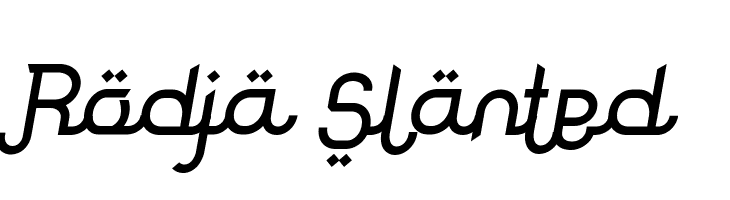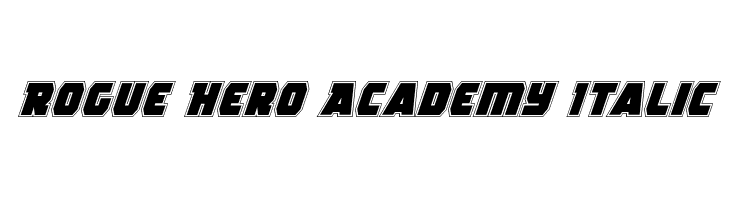
A dynamic, slanted script font with flowing, interconnected characters.
A bold, vintage-style font with thick strokes and unique cut-out details.
A playful, rounded font with bold, smooth strokes and uniform spacing.
A vintage, typewriter-style font with a classic, monospaced design.
A bold, monospaced typewriter-style font with slab serif elements.
A vintage typewriter-style font with a light, elegant touch.
A bold, 3D block-style font with strong geometric outlines.
A bold, 3D italic font with sharp angles and outlined characters.
A bold, geometric font with a three-dimensional outline effect.
Bold, italicized font with a dynamic, three-dimensional style.